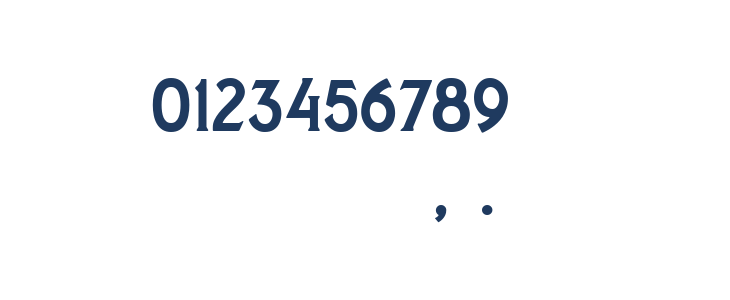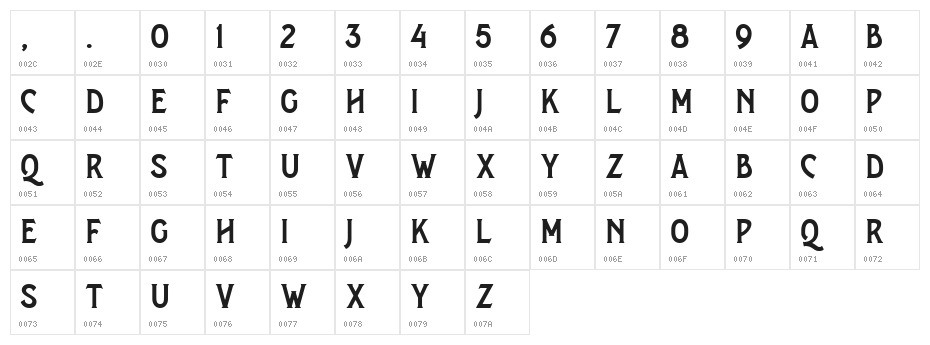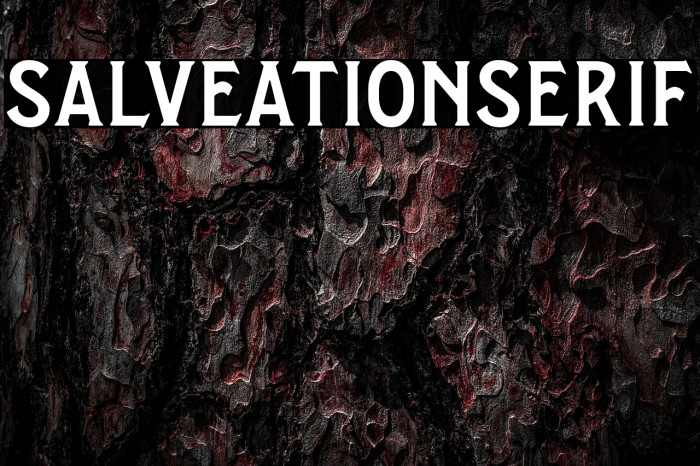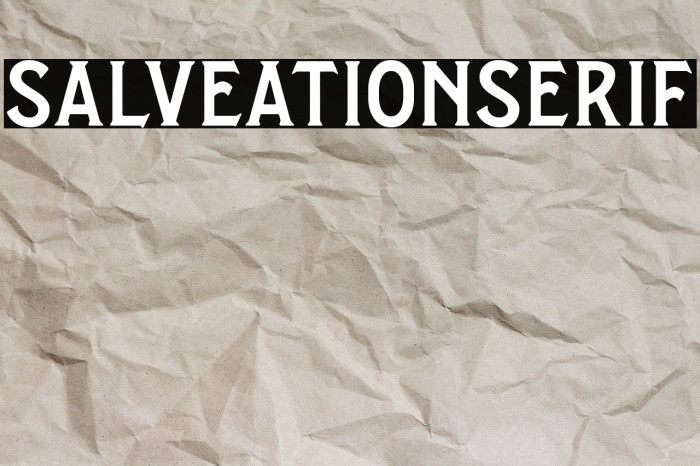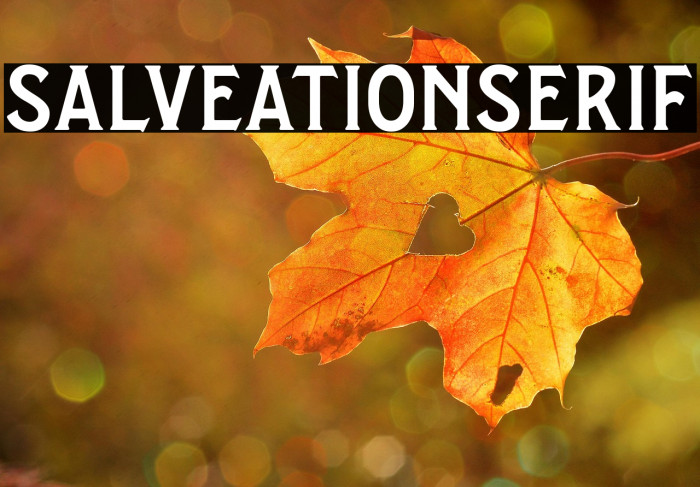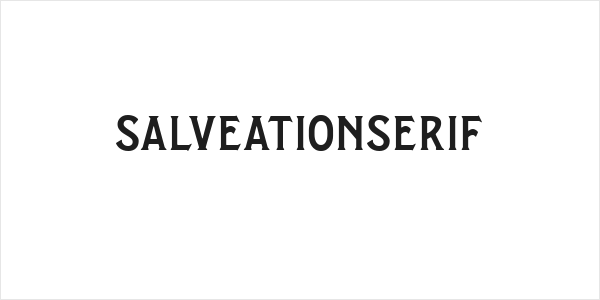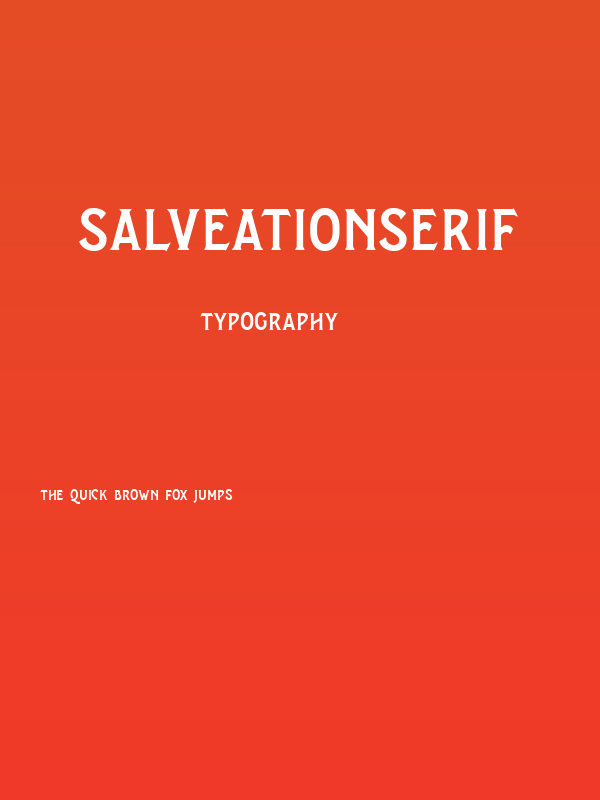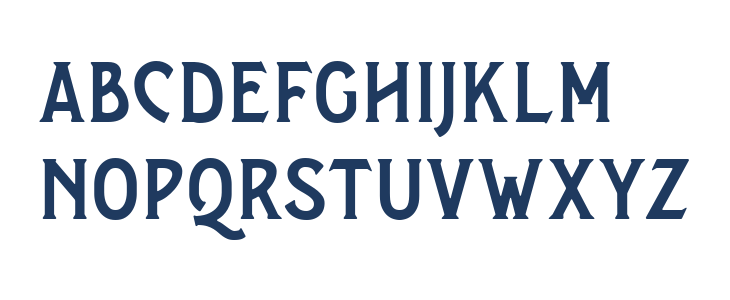
SalveationSerif Font
SalveationSerif Description
This font features a classic serif style with a modern twist. The characters are bold and well-defined, with distinct serifs that add a touch of elegance and sophistication. The uppercase letters are strong and commanding, while the lowercase letters maintain a consistent style that complements the overall design. The numerals are clear and easy to read, making them suitable for various applications. The font's design is versatile, making it suitable for both formal and creative projects. Its unique character shapes and balanced proportions make it stand out, providing a perfect blend of tradition and modernity.
| Use Case | Headlines, Logos, Editorial Design |
| Proposed Projects | Ideal for branding, editorial design, book covers, and elegant invitations. |